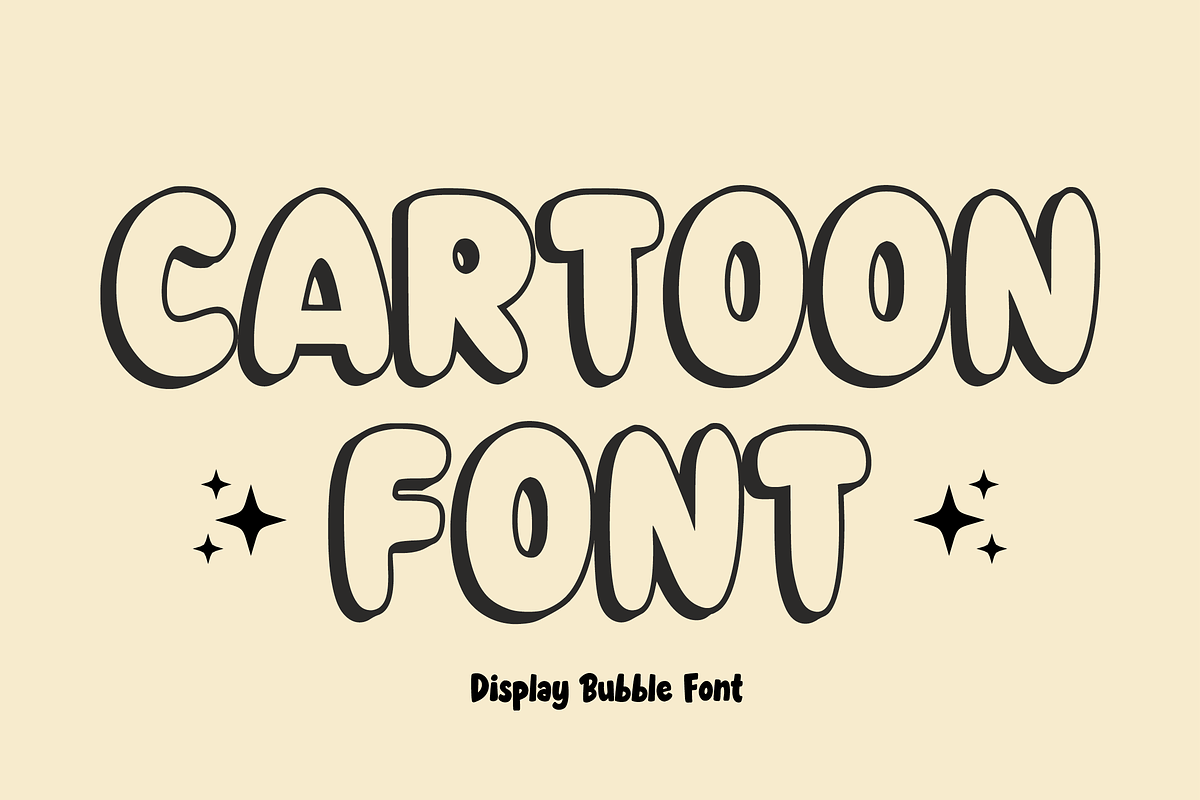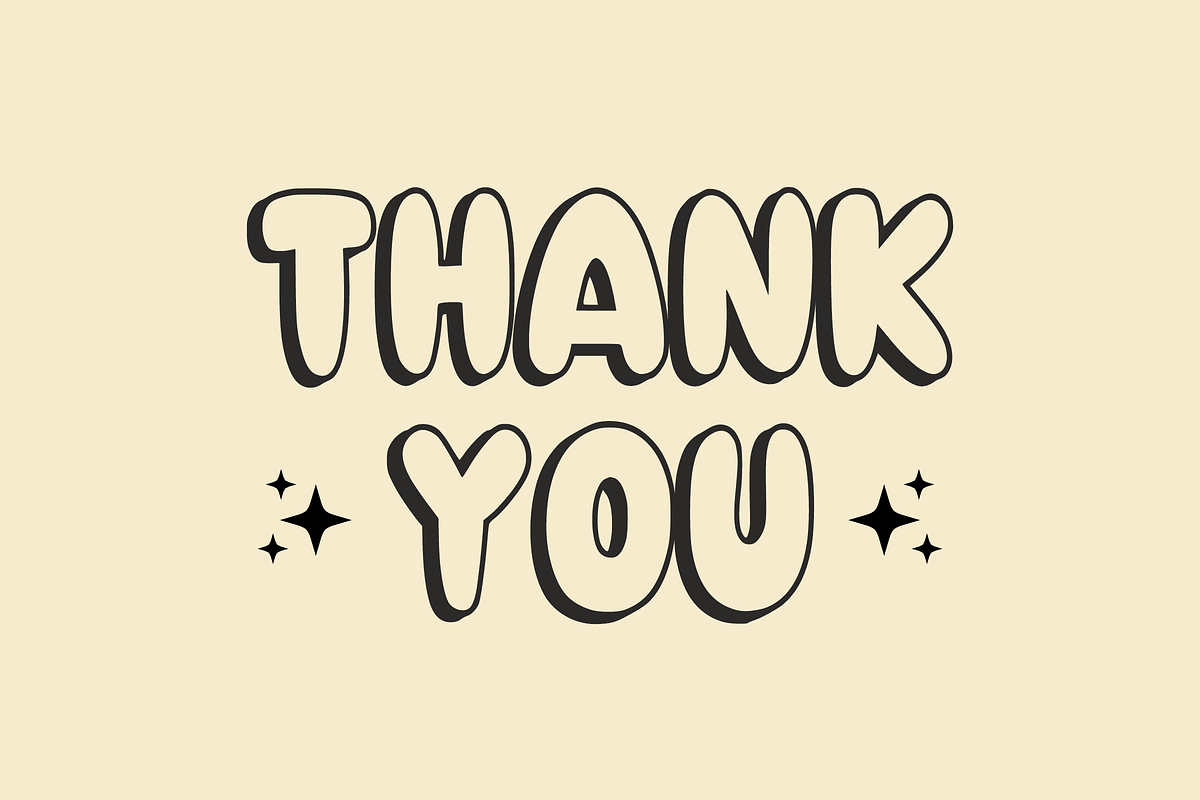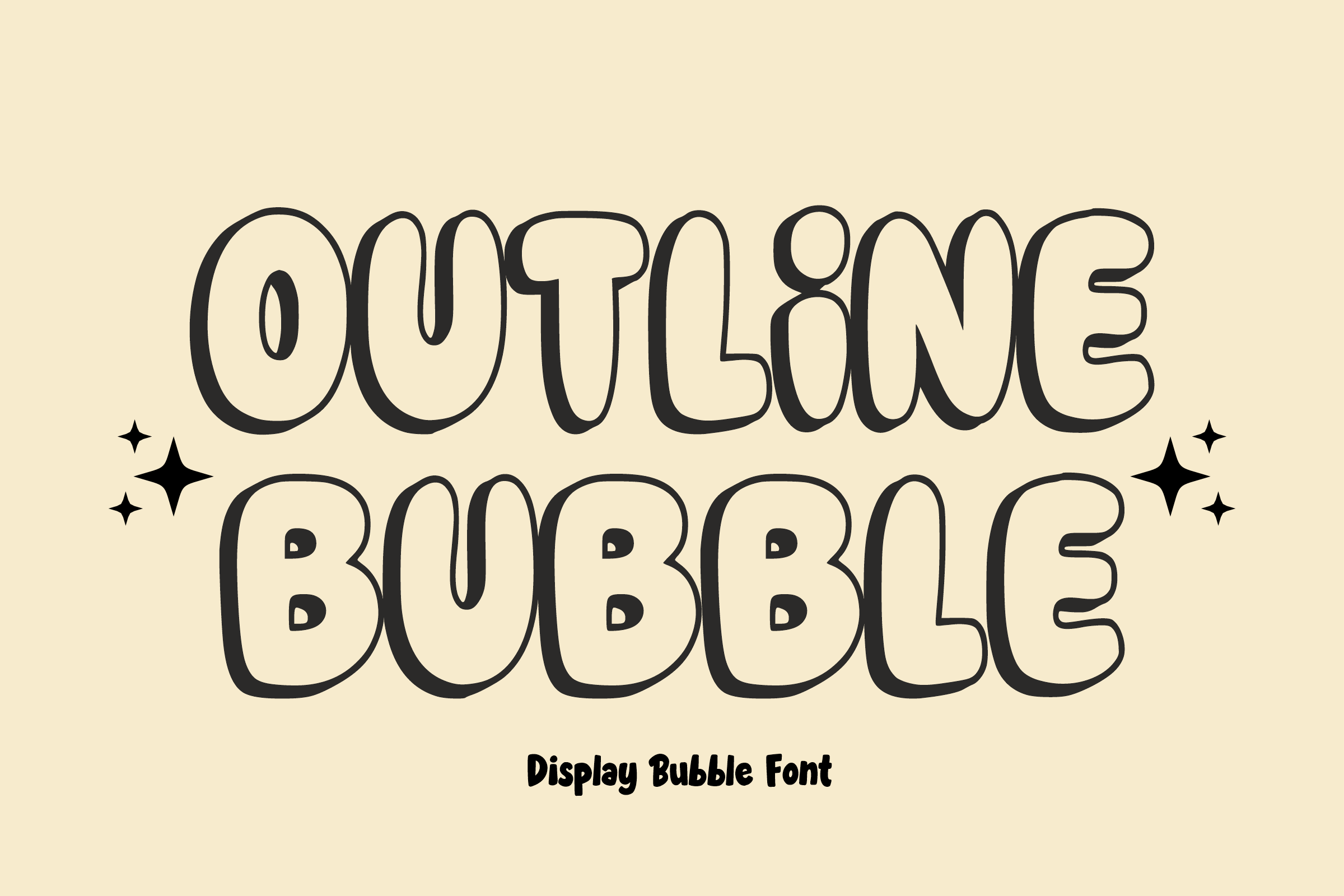
Outline Bubble - Bubble Font Types
Introducing Outline Bubble, a childish, easy-to-read display font that conveys impeccable friendliness. Whether you’re using it for crafts, digital design, presentations, or making greeting cards, this font has the potential to become your favorite go-to font, no matter the occasion!